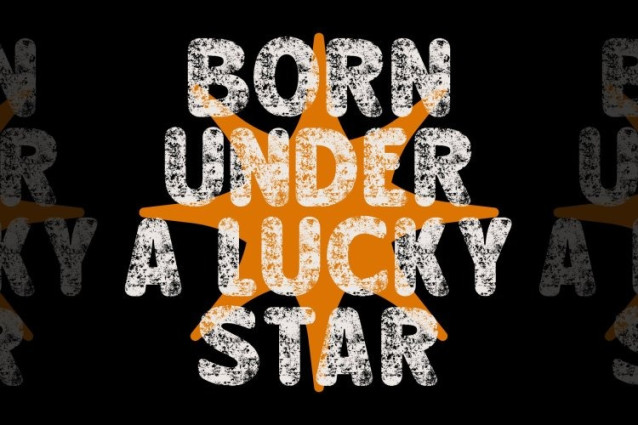
Bengal Rounded Stamp Font
Bengal Rounded Stamp Font This isn’t just a typeface it’s a performer. Every letter delivers bold presence and lively character, creating a design voice that feels confident, dynamic, and full of charm. With its rounded forms and expressive rhythm, this font brings a sense of movement and personality to any layout.
Playful Bold Shapes for Instant Visual Impact
The foundation of this font lies in its fun, chunky shapes. The bold rounded structure gives each character a warm and approachable look while still maintaining strong visual weight. These playful forms make the font ideal for designs that aim to communicate friendliness, excitement, and bold creativity.
Stamp Texture for Authentic Vintage Appeal
Adding to its expressive charm is the unique stamp texture that enhances the font with a handcrafted, worn-in feel. This texture brings depth, warmth, and a slightly rugged edge that evokes the authenticity of vintage prints. The combination of bold shapes and stamped grain makes this font feel both nostalgic and fresh perfect for retro-inspired layouts or artistic branding.
Perfect for Vintage Design, Posters, and Bold Branding
This font thrives in projects that require a strong, playful identity. Its standout forms and textured personality make it ideal for vintage-style posters, bold branding concepts, packaging, event graphics, merchandise, and more.